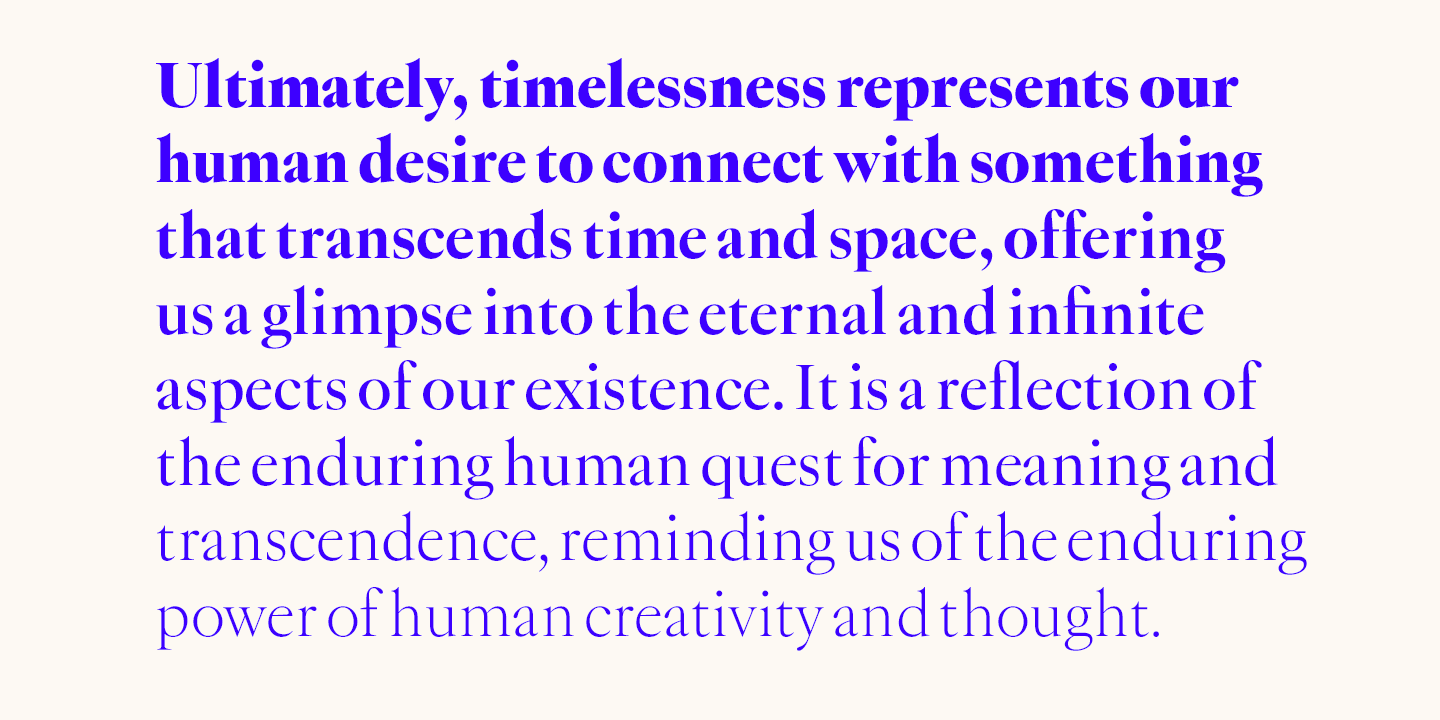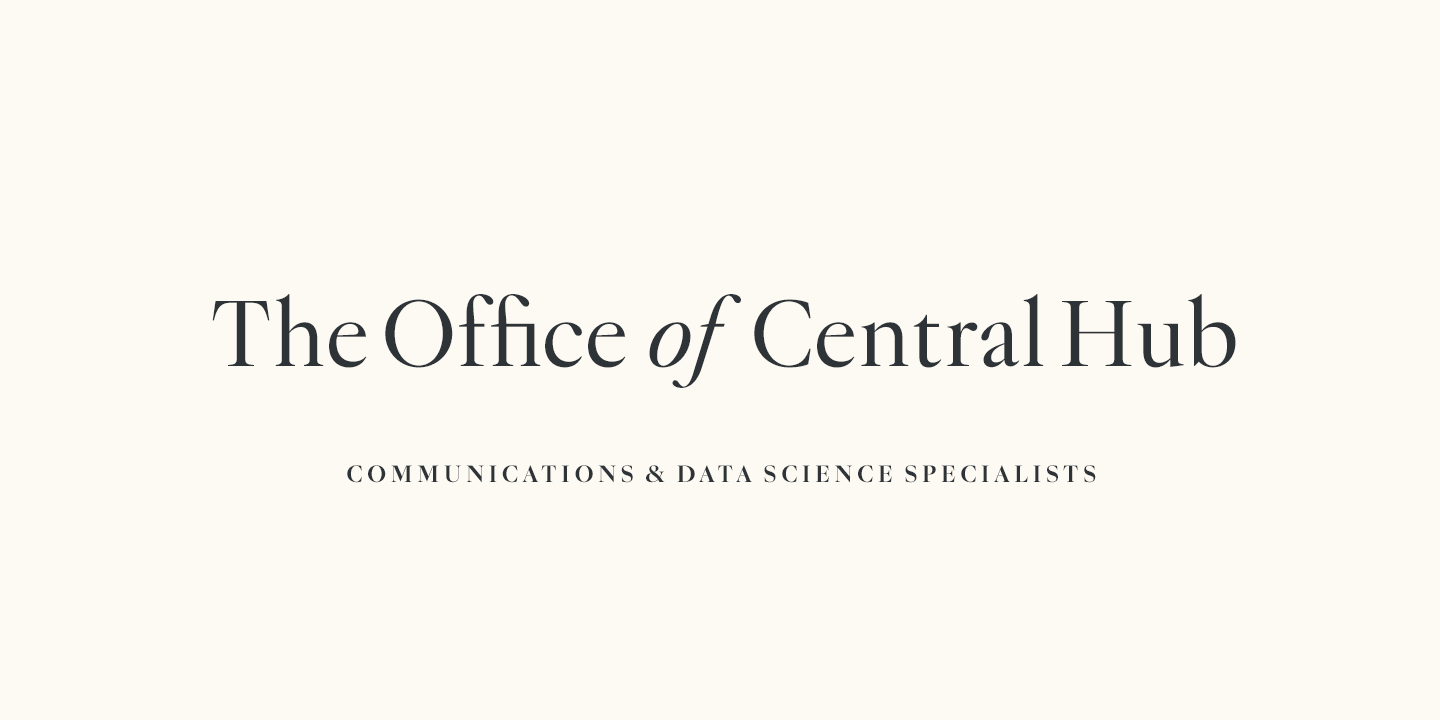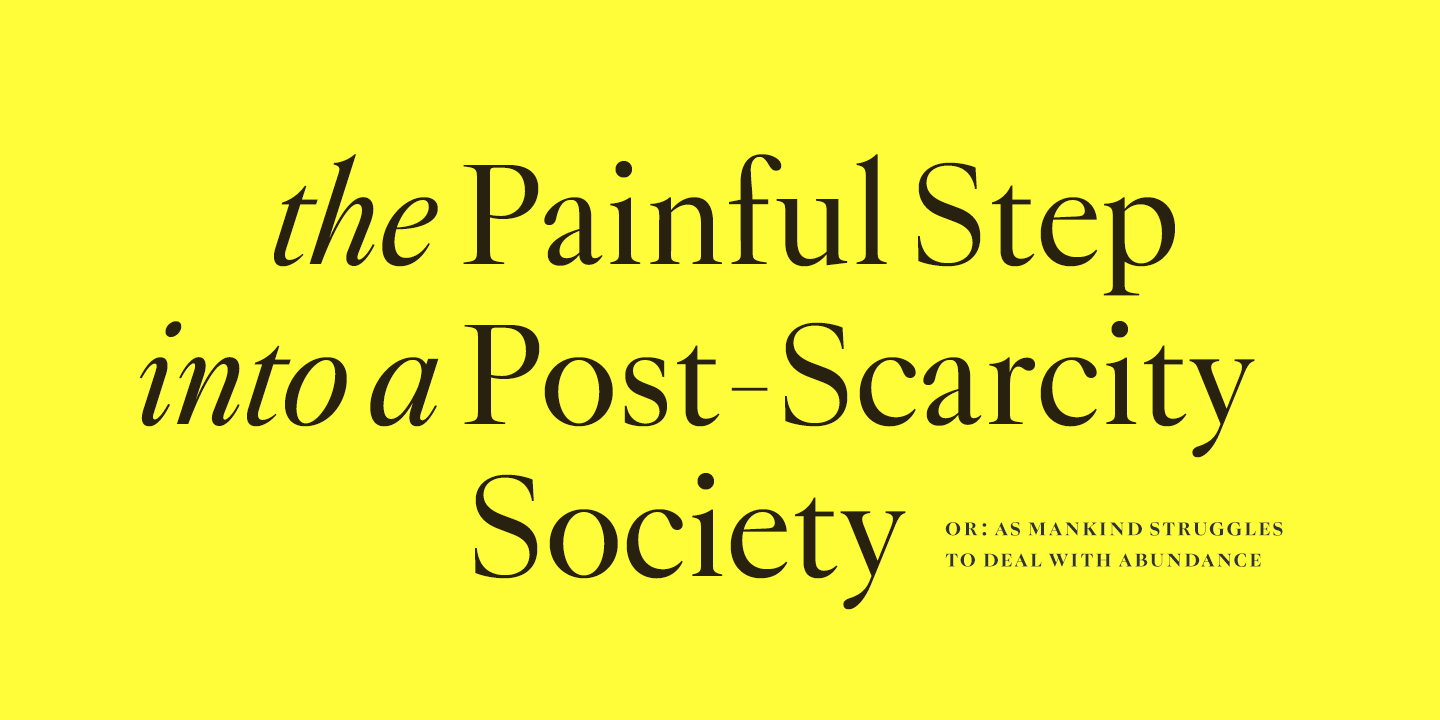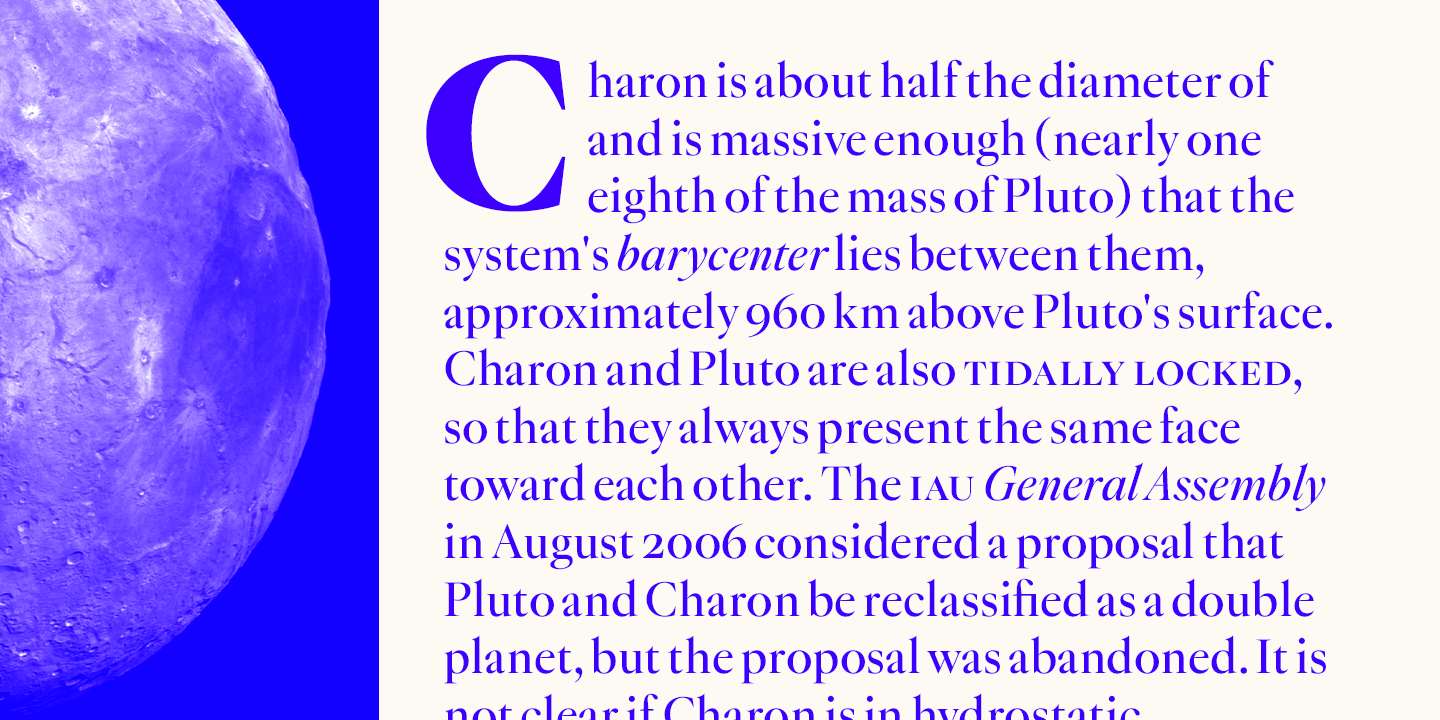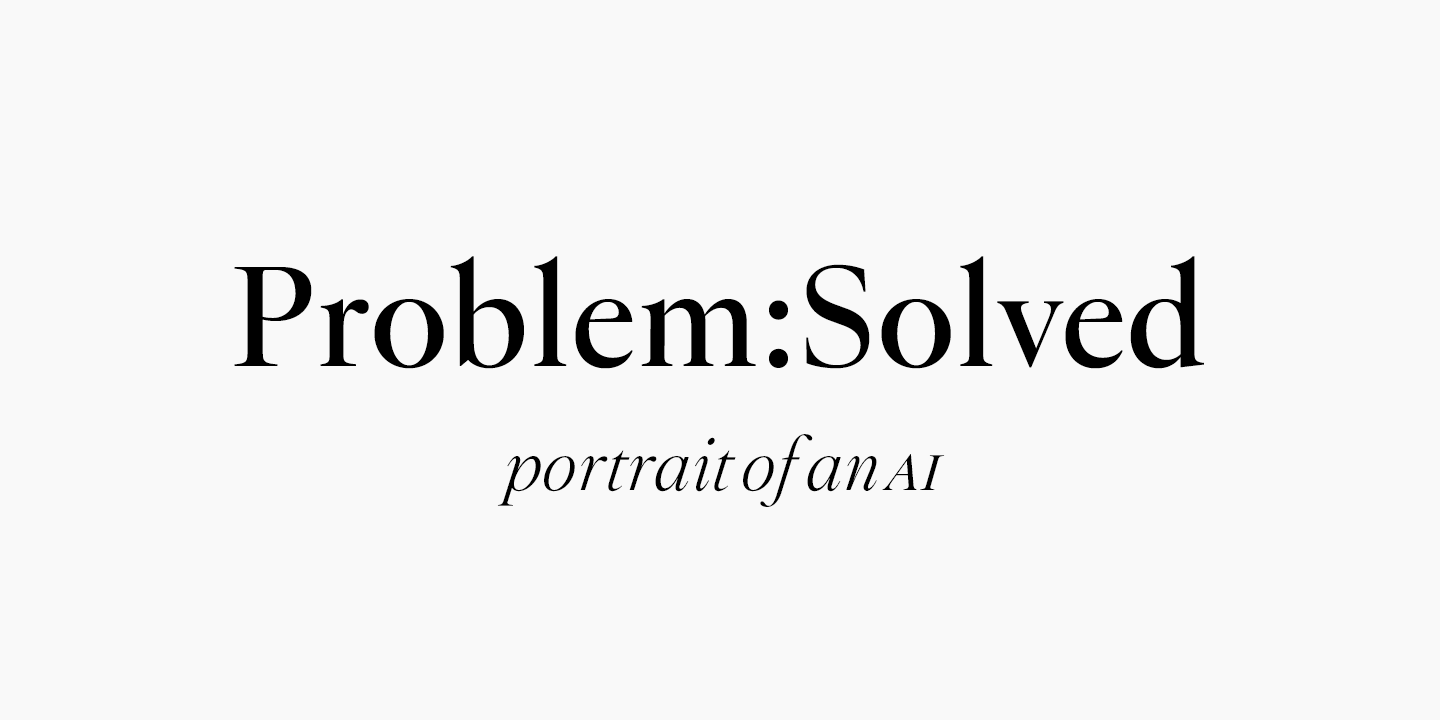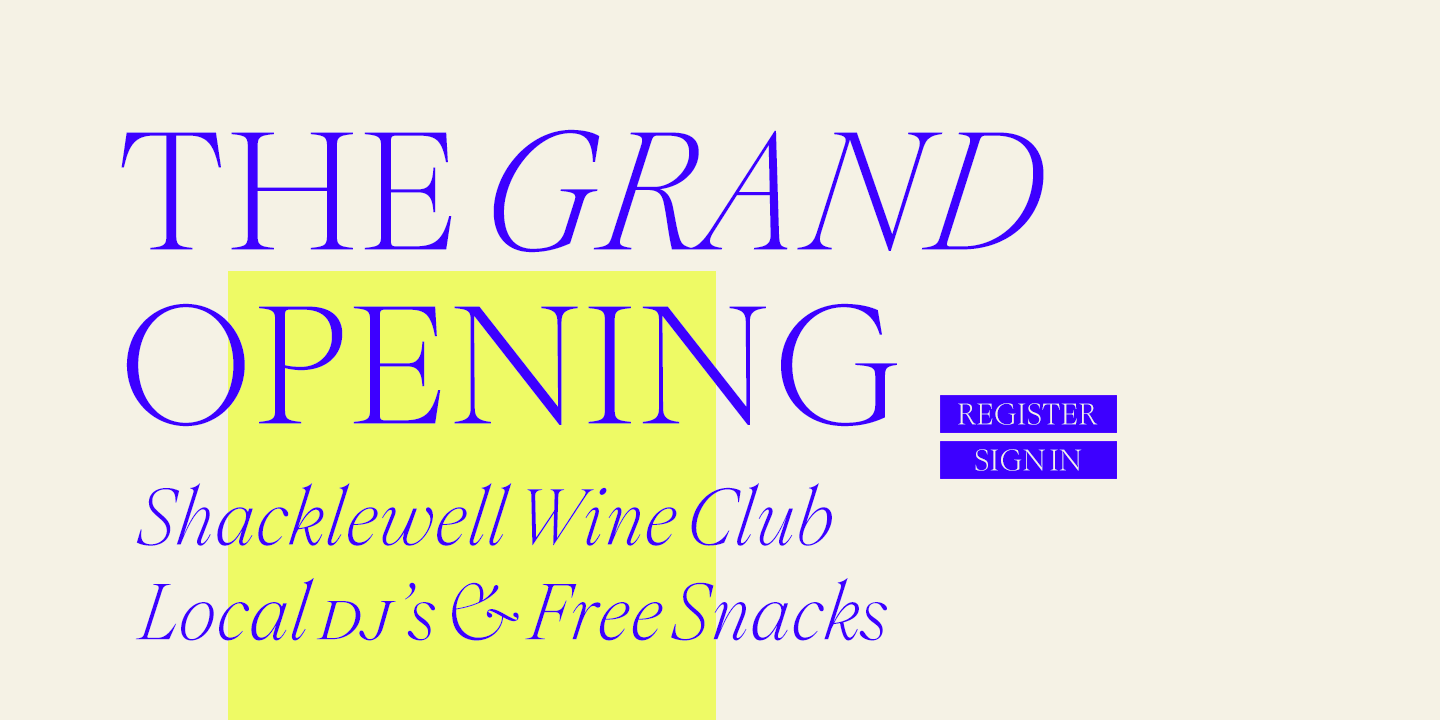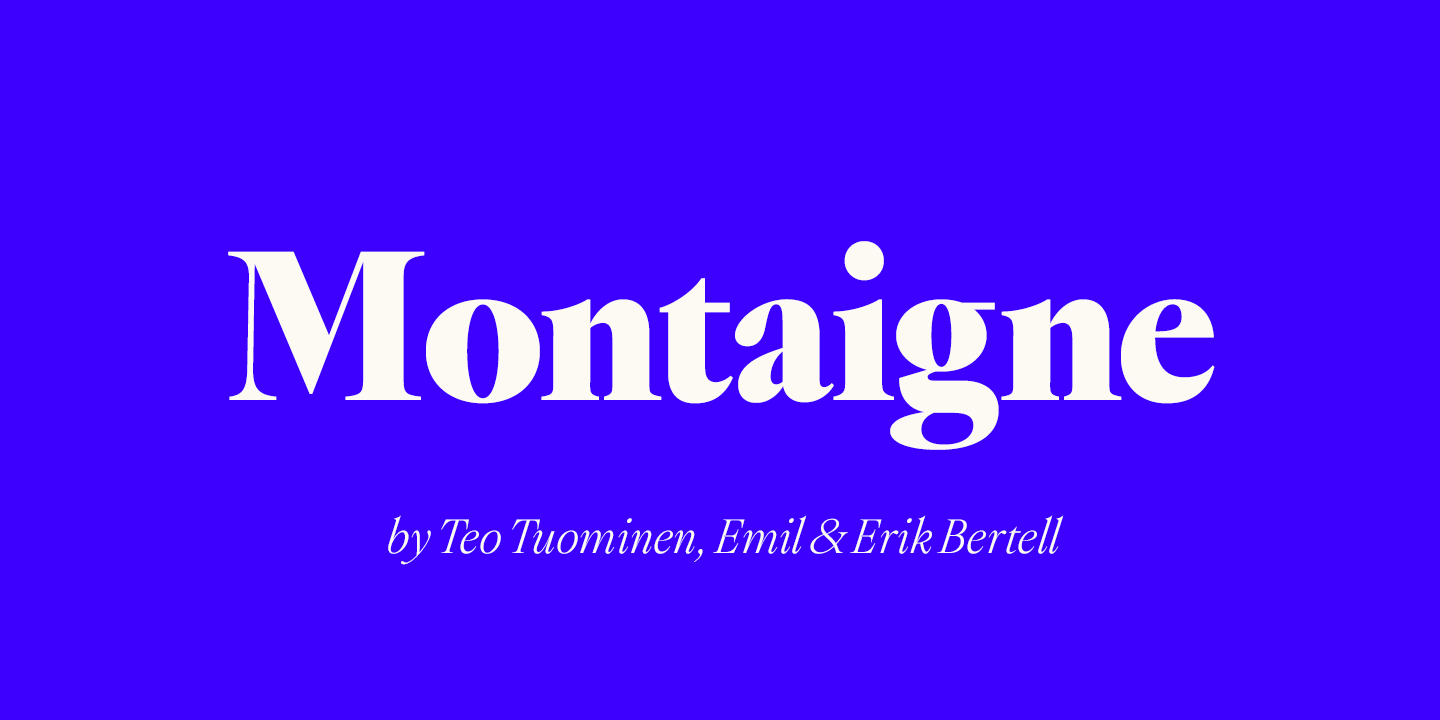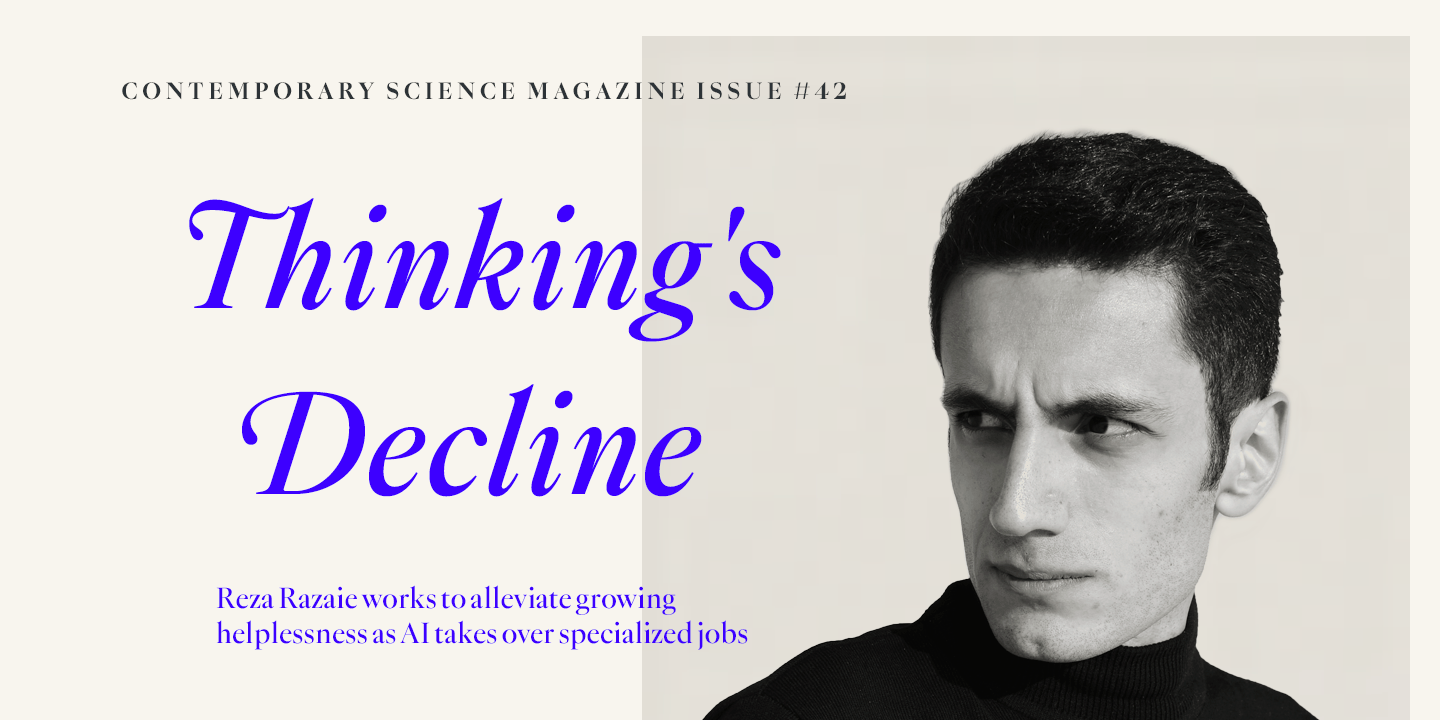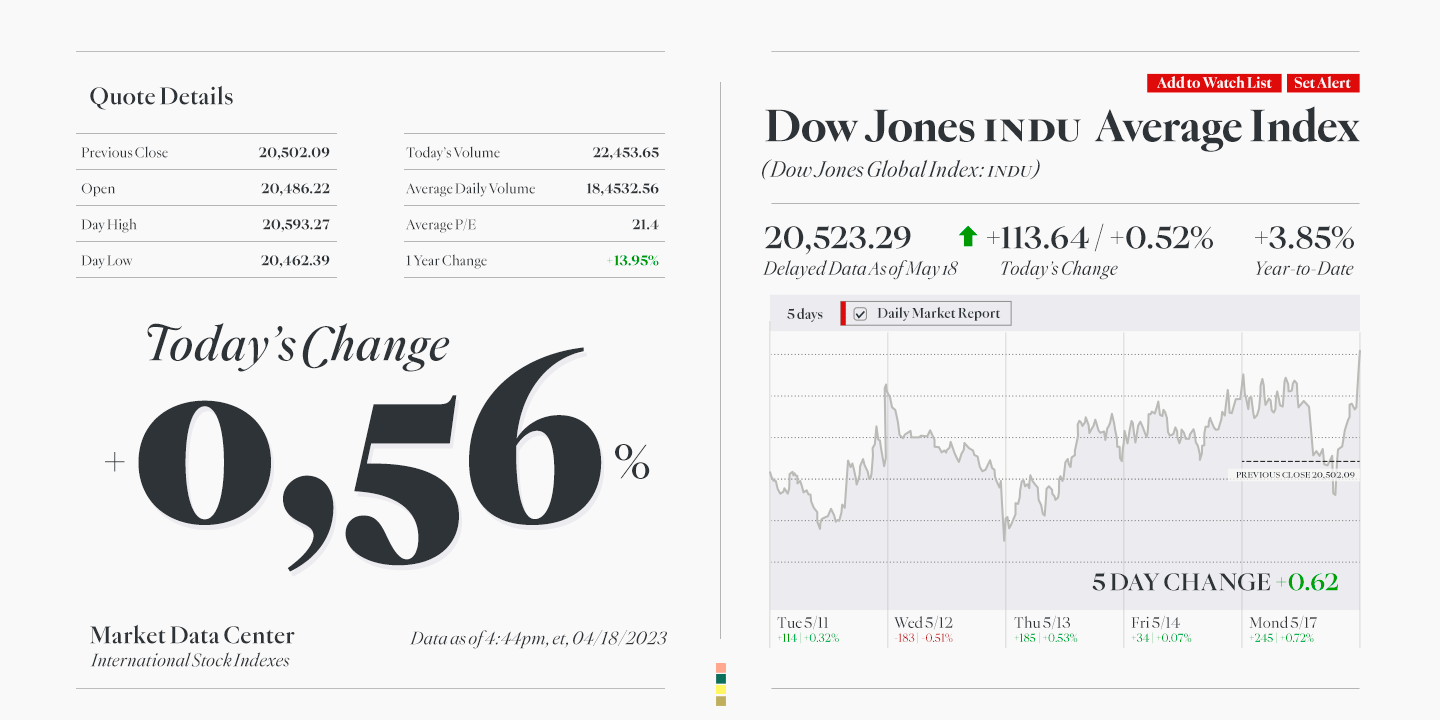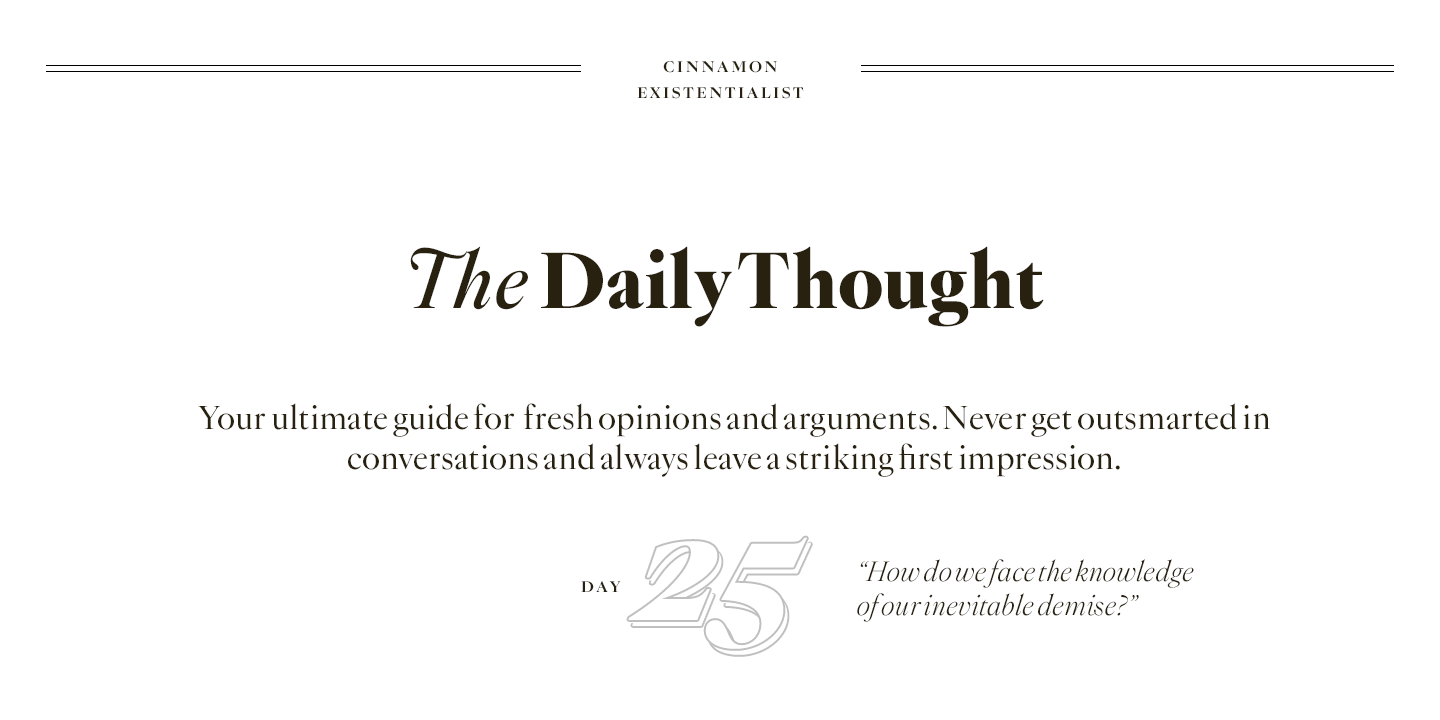
Delve into the world of timelessness with Montaigne. With its blend of classic elements and contemporary design, this serif family offers a comprehensive selection of eight styles and their corresponding italics. Explore Montaigne's OpenType features, including Small Caps, OldStyle numerals, and a delightful array of Swash initials and Discretionary ligatures in the Italic styles.